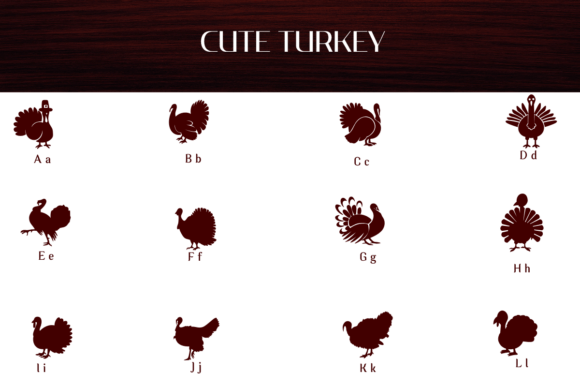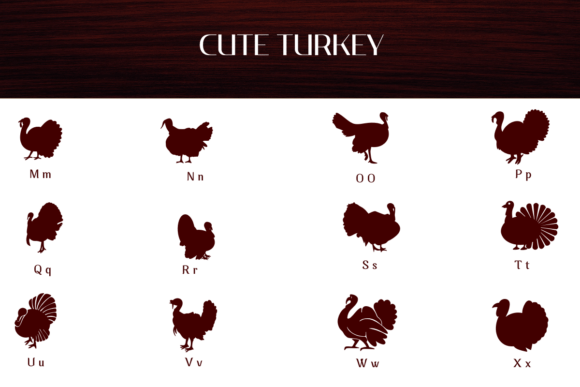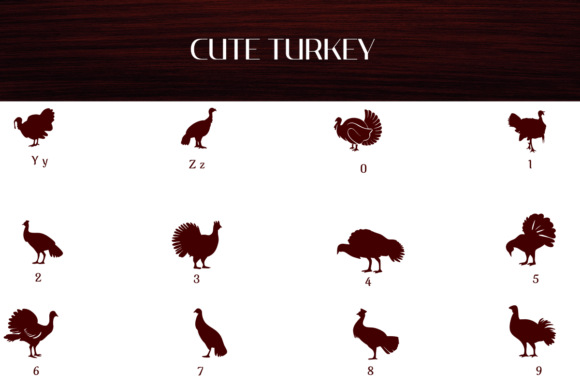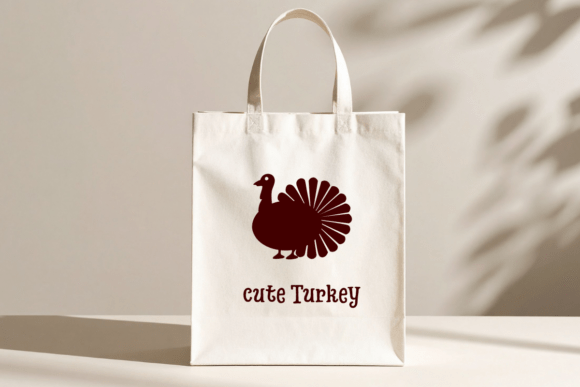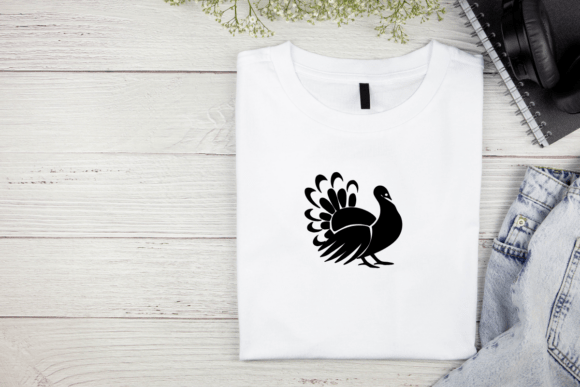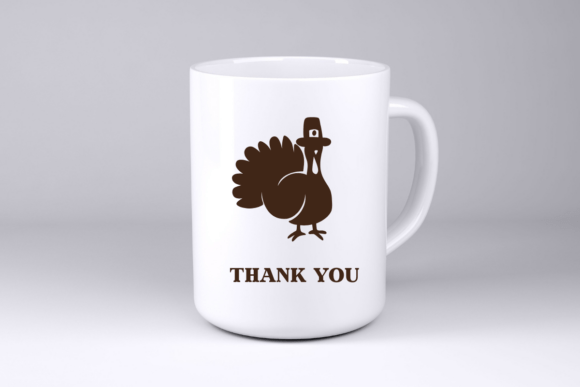
Introduction to Cute Turkey Font
As a designer, have you ever found yourself stuck in a creative rut, searching for the perfect font to bring your ideas to life? Maybe you’re working on a new project, and you need a high-quality design resource that’s both fun and functional. I’ve been there too, and that’s why I’m excited to introduce you to the Cute Turkey Font – a delightful dingbats font that’s perfect for a variety of creative projects.
This charming font is not just a pretty face; it’s also incredibly versatile. With its transparent background, you can use it for everything from taking notes and writing a diary to making greeting cards and designing social media posts. And the best part? It’s available for free download, making it an absolute steal for designers on a budget.
Key Features of Cute Turkey Font
- High-quality design resource ideal for creative projects, such as invitations, greeting cards, and more.
- Comes in a single size, making it easy to use in a variety of design contexts.
- Unique characteristics include playful, whimsical design elements and a charming, childlike aesthetic.
Honest Review: Cute Turkey Font
I recently came across the Cute Turkey Font, and I must say, it’s a delightful addition to any design resource. The font is perfect for those who want to add a playful touch to their creative project.
- Transparent background that allows for seamless integration into various design elements.
- Unique and whimsical style that’s sure to grab attention.
- ⚠️ Limited character set, which may not be suitable for longer texts or complex designs.
- ⚠️ May not be suitable for formal or professional projects due to its playful nature.
Overall, the Cute Turkey Font is a great resource for designers who want to add a touch of whimsy to their work. While it may have some limitations, its high quality design and free download make it a valuable addition to any design library.
Cute Turkey Font
Tips for Getting the Most Out of Cute Turkey Font
To maximize the effectiveness of Cute Turkey Font, experiment with different font sizes, colors, and combinations. Use it to create attention-grabbing headlines, or as a subtle accent for your text.
Common Use Cases for Cute Turkey Font
Cute Turkey Font is perfect for a variety of projects, including social media graphics, invitations, and children’s educational materials. Its playful and approachable design makes it an ideal choice for any creative project that requires a touch of personality and charm.